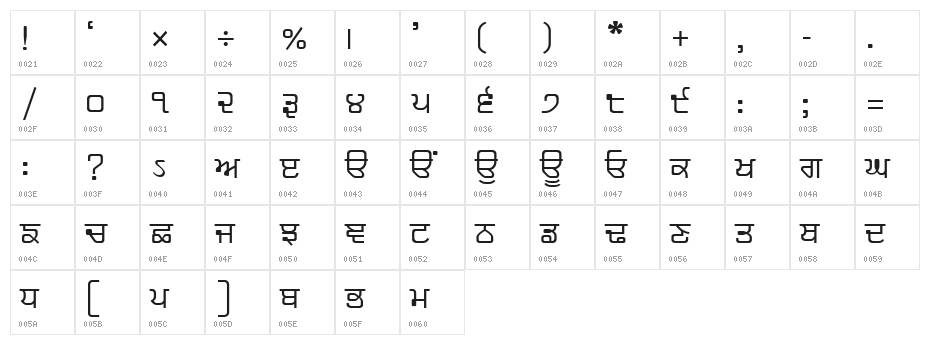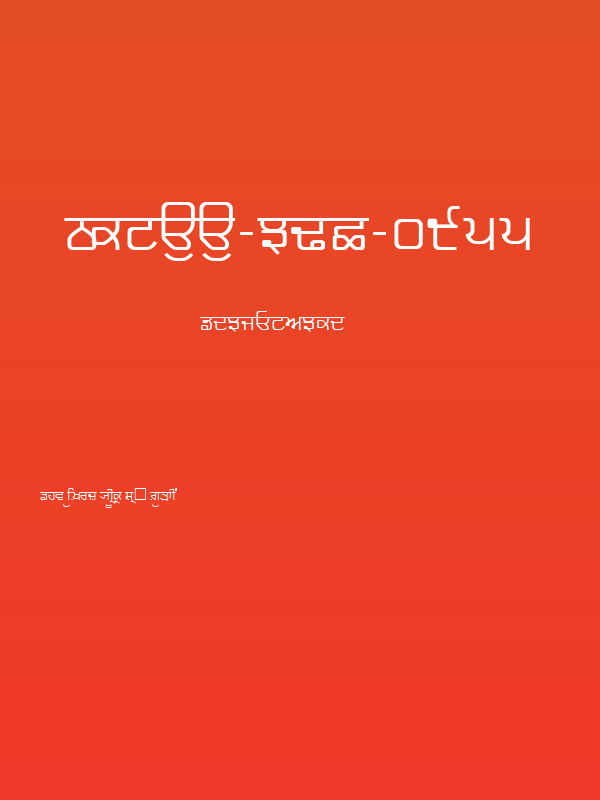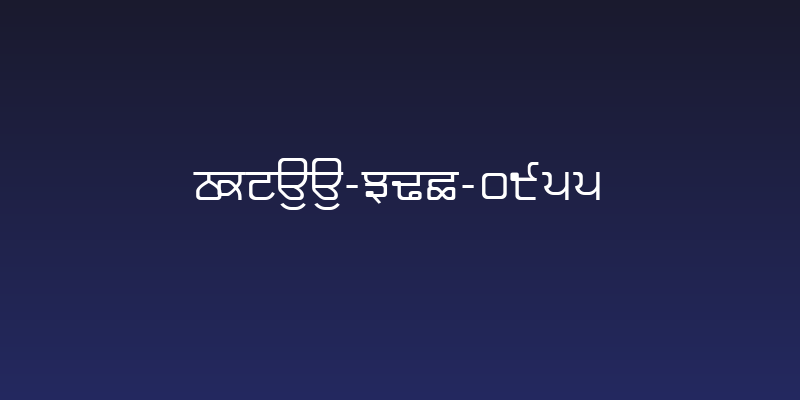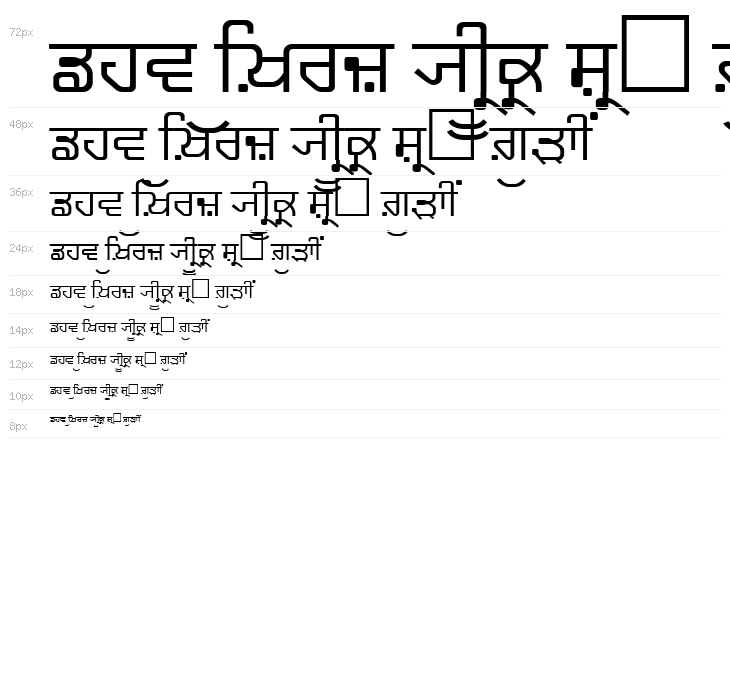
Shree-Pun-0955 Font
Shree-Pun-0955 Description
This font features a unique and modern design with a geometric structure. The characters are composed of bold, clean lines with a consistent stroke width, giving it a uniform appearance. The font includes a full set of characters, including numerals and special symbols, all designed with a similar aesthetic. The overall look is contemporary and slightly futuristic, making it suitable for projects that require a modern touch. The spacing between characters is normal, ensuring readability while maintaining its distinct style.